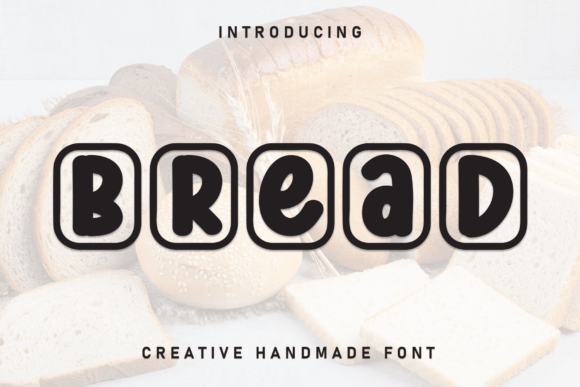
Bread Font: The Perfect Handwritten Display for Warm and Inviting Designs
Are you looking for a font that can add a touch of warmth and personality to your designs? Look no further than the Bread Font, a captivating and congenial handwritten display that’s perfect for creating enchanting wedding invitations, innovative cards, and distinctive designs with a lighthearted twist.
The Essence of Comfort and Joy
The Bread Font embodies the essence of genuine comfort and joy, making it ideal for designers and crafters who want to create designs that feel cozy and inviting. This delightful font is overflowing with charm and festooned with amiability, infusing vitality into each word and transforming a simple string of text into a memorable masterpiece.
Wedding invitations and cards are a great way to use the Bread Font, as it adds a touch of romance and whimsy to any design. The font’s handwritten style gives it a personal and intimate feel, making it perfect for special occasions. Whether you’re designing a wedding invitation, a birthday card, or a holiday greeting, the Bread Font is sure to make your design stand out.
Adding a Lighthearted Twist to Your Designs
The Bread Font is also great for adding a lighthearted twist to your designs. Its playful and charming style makes it perfect for designs that need a bit of personality and whimsy. Whether you’re creating a design for a children’s party, a baby shower, or a casual gathering, the Bread Font is sure to add a touch of fun and playfulness.
Key Features of the Bread Font
- Handwritten style: The Bread Font has a beautiful, handwritten style that’s perfect for creating personal and intimate designs.
- Charming and amiable: The font is overflowing with charm and festooned with amiability, making it perfect for designs that need a touch of warmth and personality.
- Perfect for wedding invitations and cards: The Bread Font is ideal for wedding invitations, cards, and other special occasion designs.
- Lighthearted and playful: The font’s playful style makes it perfect for designs that need a bit of whimsy and fun.
Tips for Using the Bread Font
Here are a few tips for using the Bread Font in your designs:
- Use it for headings and titles: The Bread Font is perfect for headings and titles, as it adds a touch of personality and whimsy to your design.
- Pair it with other fonts: The Bread Font pairs well with other fonts, such as serif and sans-serif fonts. Experiment with different pairings to find the one that works best for your design.
- Use it in combination with images: The Bread Font looks great in combination with images, especially those with a warm and cozy feel.
The Bread Font is a captivating and congenial handwritten display that’s perfect for designers and crafters who want to add a touch of warmth and personality to their designs. With its charming and amiable style, it’s ideal for creating enchanting wedding invitations, innovative cards, and distinctive designs with a lighthearted twist. Whether you’re a designer or a crafter, the Bread Font is sure to become a favorite in your collection.